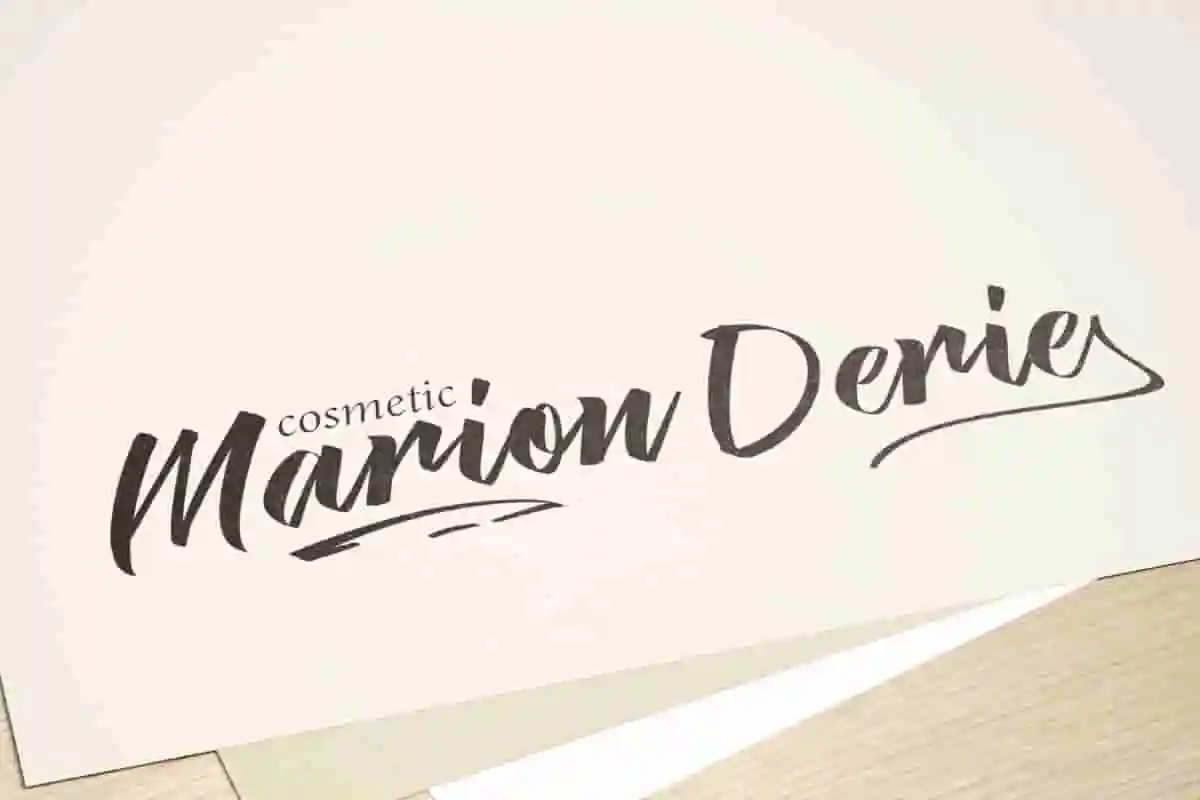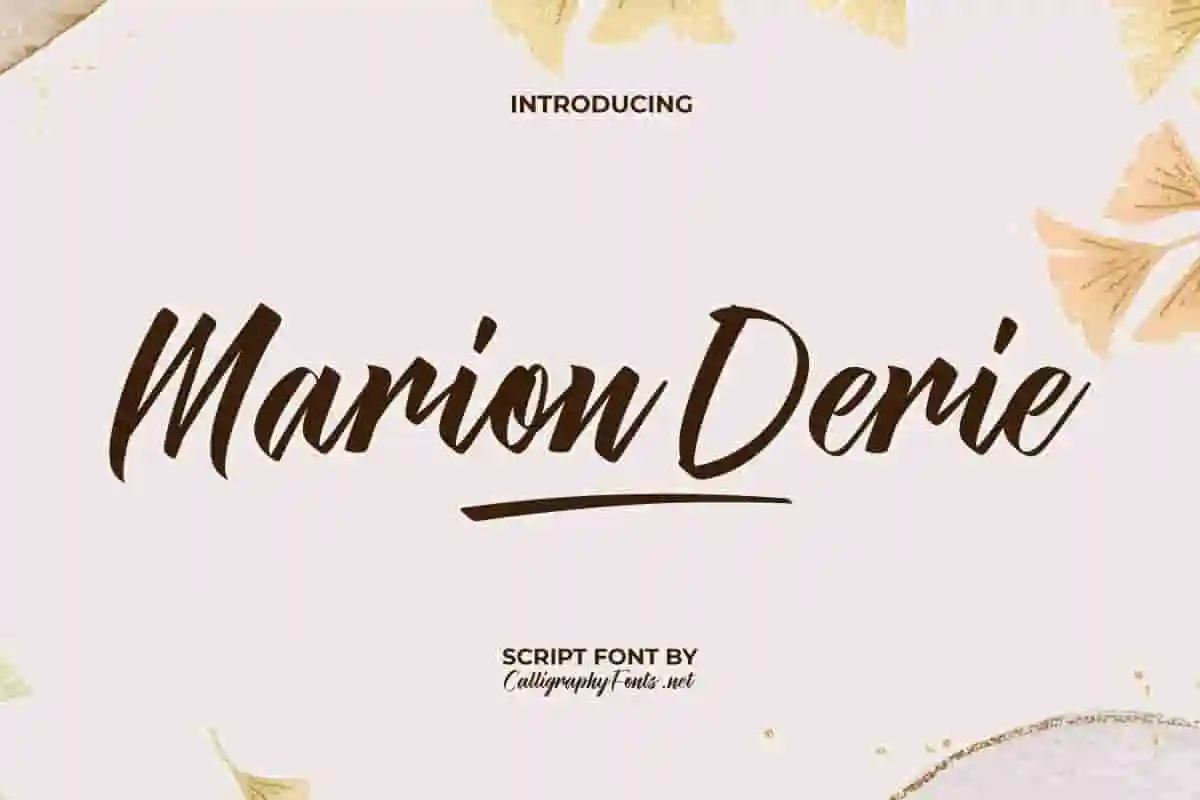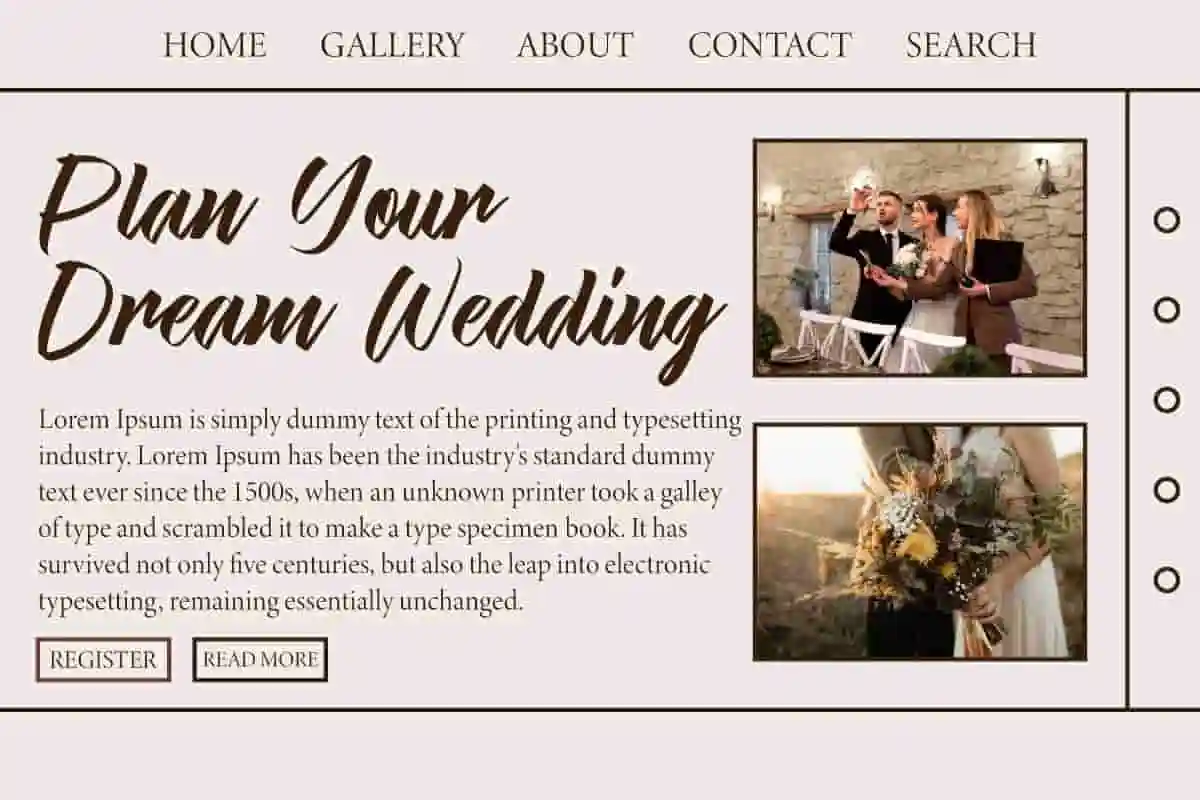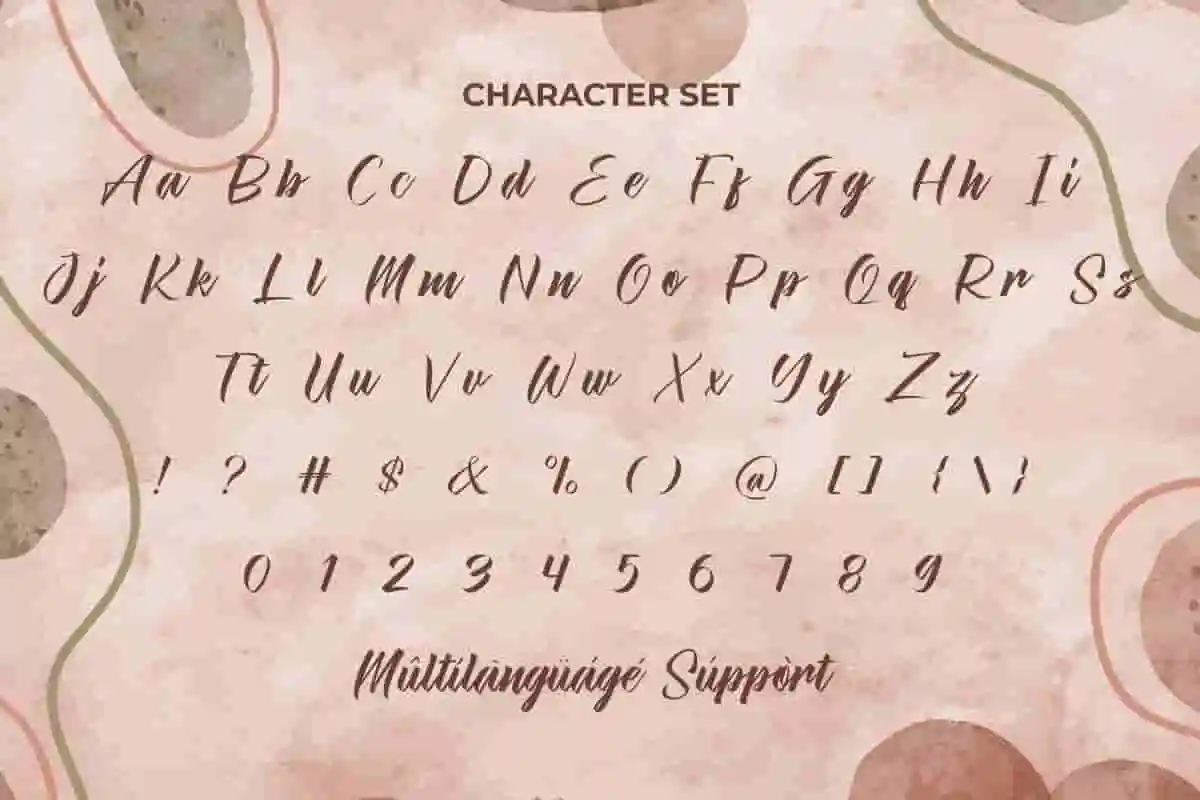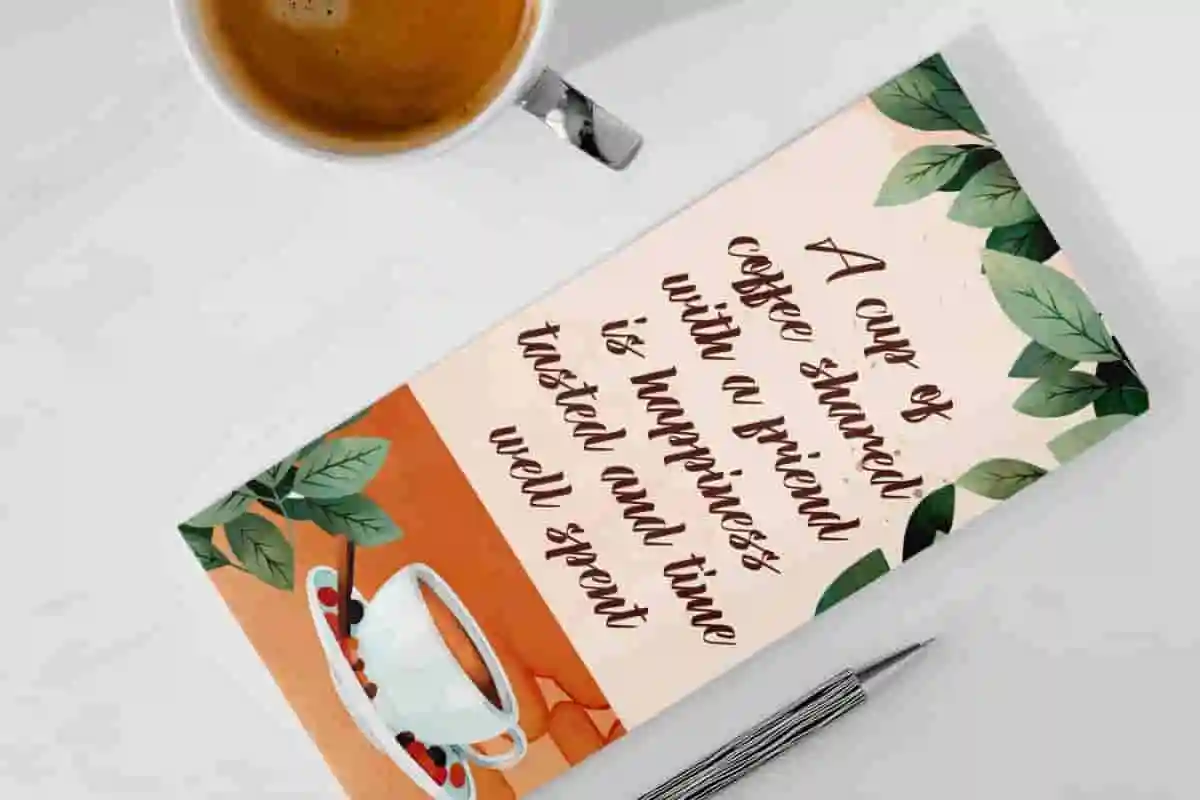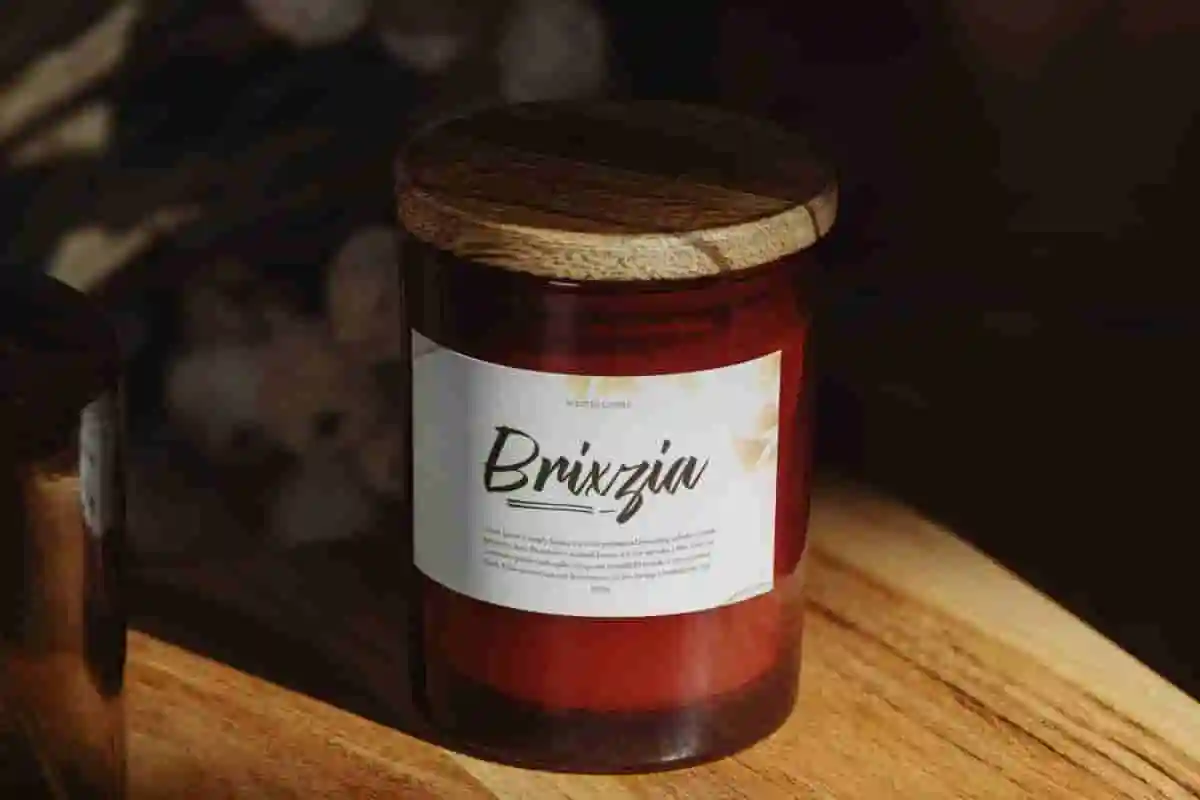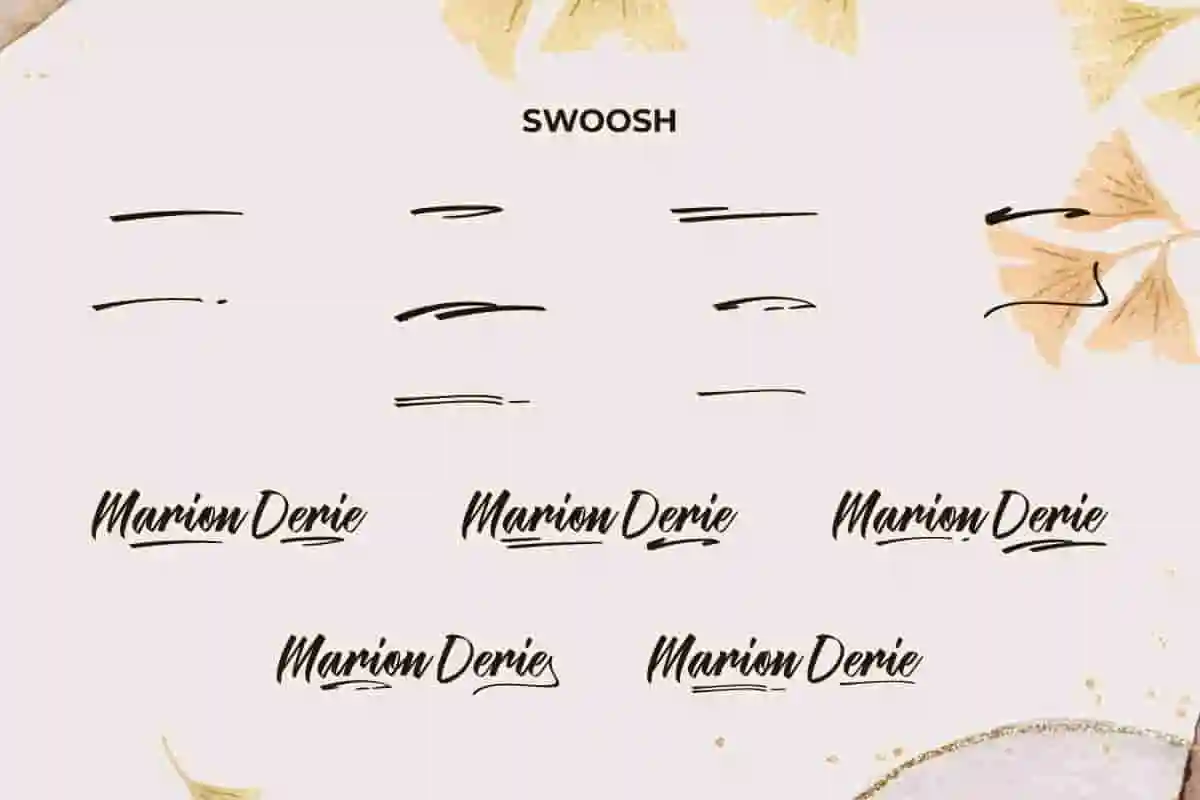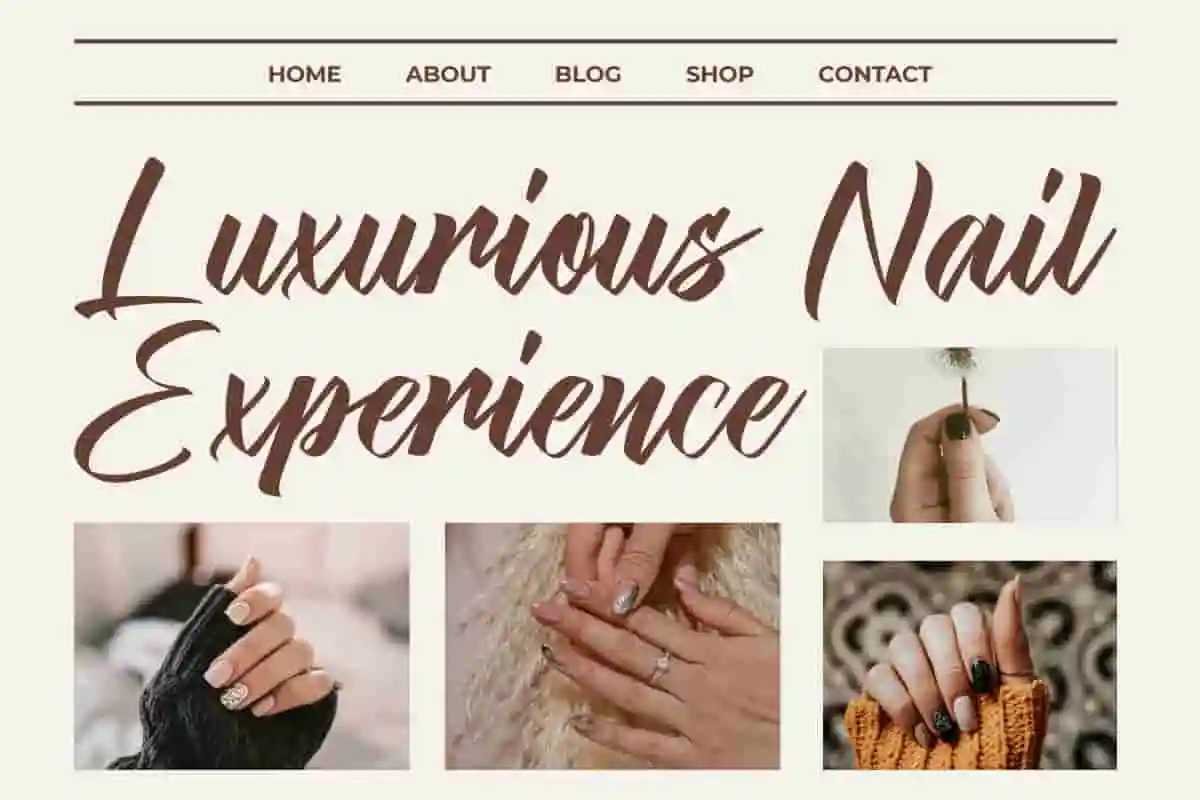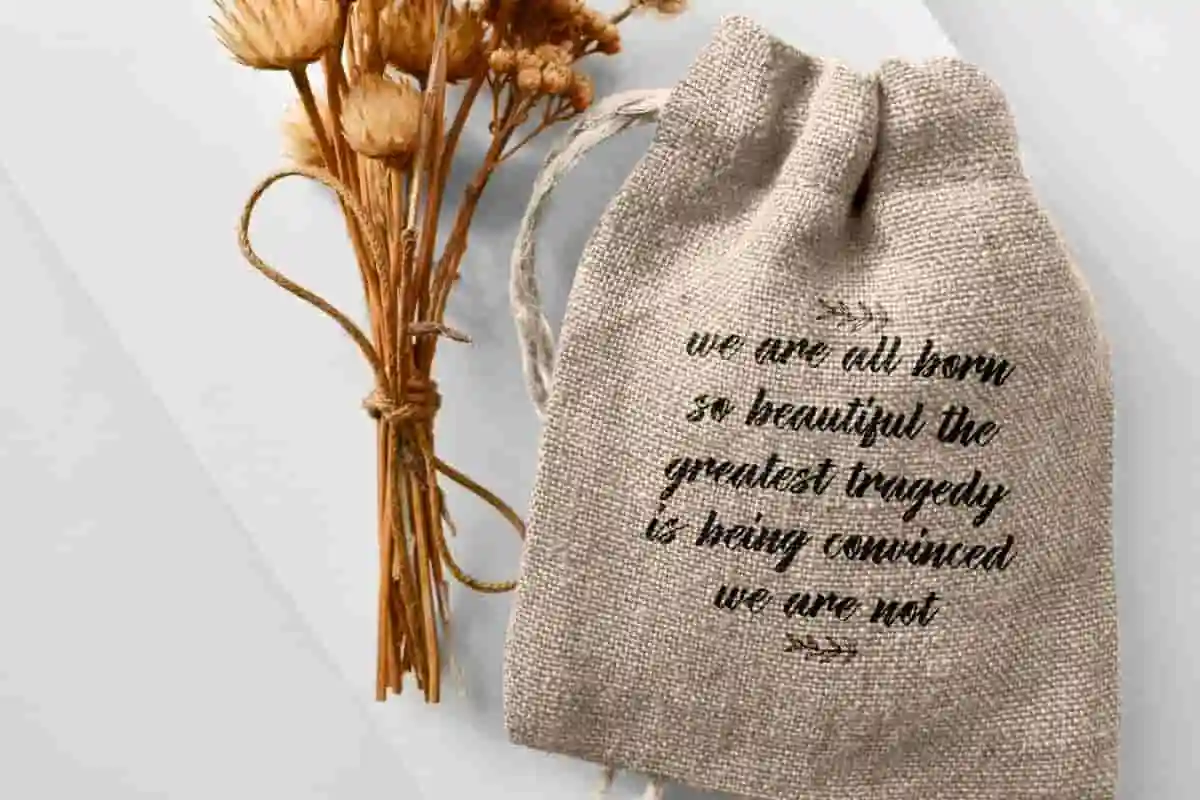
Marion Derie Brush Font
Marion Derie Font is a beautifully crafted handwritten script typeface that embodies elegance and versatility. This font feels personal and makes it perfect for your creative projects such as cafe, cosmetic, heading, label, wedding, etc.
Marion Derie Font is a bold neat handwriting script font made in an authentic italic style with beautiful swooshes. This typography is carefully designed and intended to make a big impact on the print and digital design fields. This typeface works really well for coffee shop, cosmetic, event organizer, handicraft, nail beautician, photography, scented candle retail, spa salon, wedding, and others.
Unleash your creativity with Marion Derie Brush Font, a beautifully handcrafted brush typeface designed to add personality and artistic flair to your projects. Whether you’re working on branding, social media graphics, invitations, or packaging, Marion Derie brings a dynamic, natural feel that stands out.
Looking for a font that brings genuine personality and bold expression to your designs? Meet Marion Derie Brush Font — a handcrafted brush typeface with natural, textured strokes that add a fresh, artistic vibe to any project. Perfect for branding, social media posts, invitations, posters, and packaging, Marion Derie delivers a hand-painted feel that makes your work truly stand out.
Inject boldness and authenticity into your designs with Marion Derie Brush Font! This handcrafted brush font captures the natural texture and dynamic energy of hand-painted lettering, perfect for making your projects truly unique. Ideal for logos, branding, social media, invitations, posters, and packaging, Marion Derie adds a creative, artistic vibe that stands out from the crowd.
• Handcrafted brush
• Full set of uppercase
Marion Derie Font is a beautiful handmade bold script font with a classic modern feel. It will feel easy and so versatile to use because each word can be changed to your liking. This typeface works really well for banner, blogs, branding logo, brochure, covers, flyer, greeting cards, headers, headline, invitation, labels, menu, mockup, poster, printed materials, quotes, template, title, websites, and others.